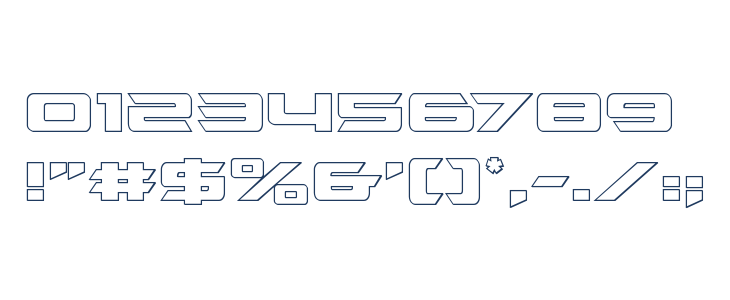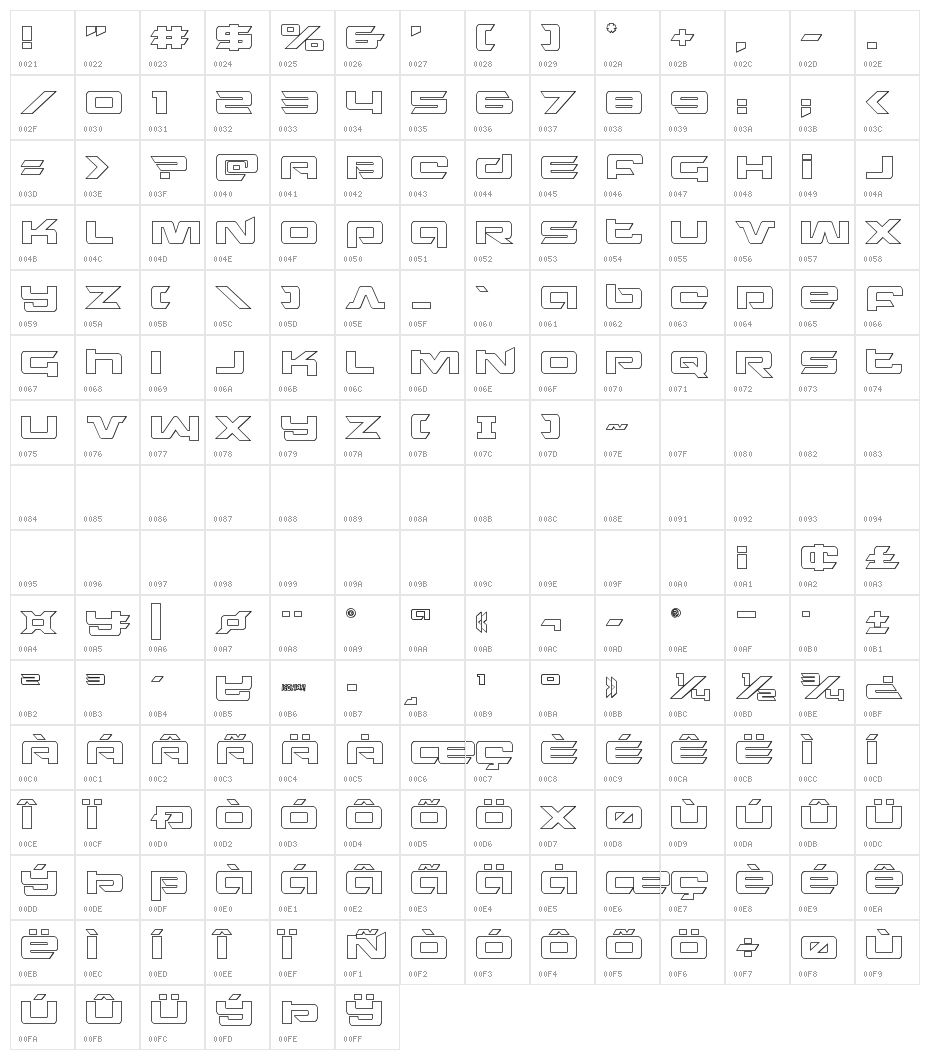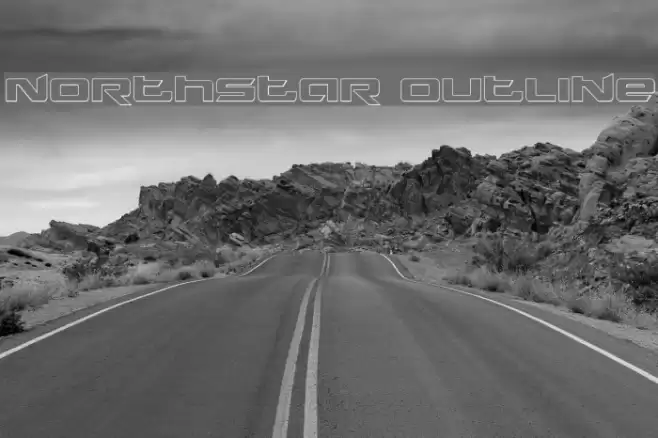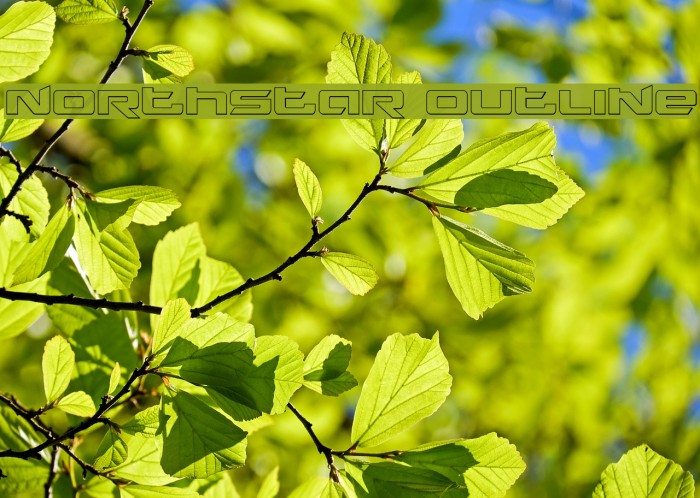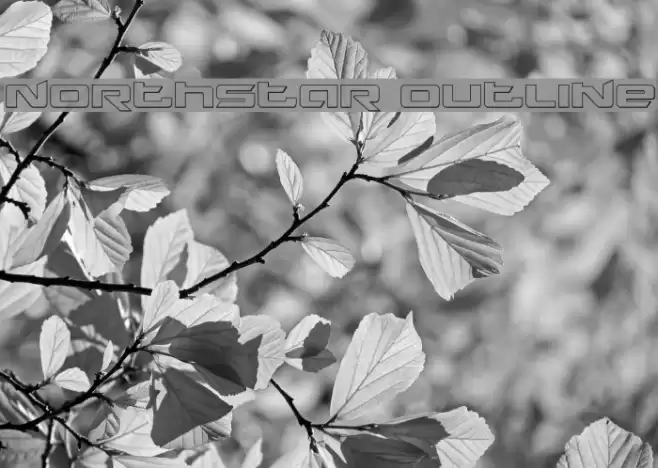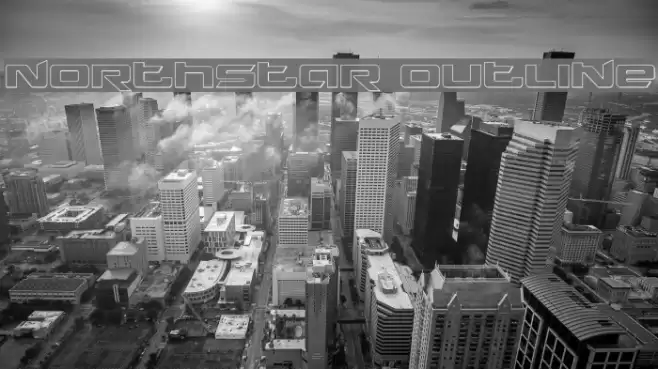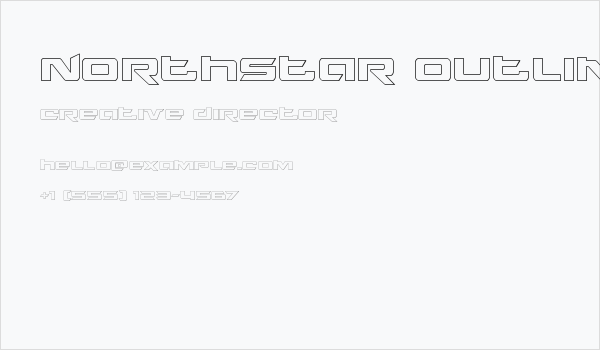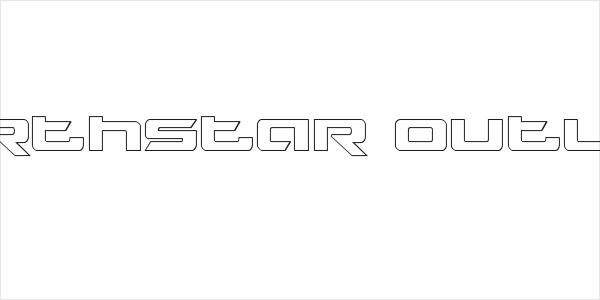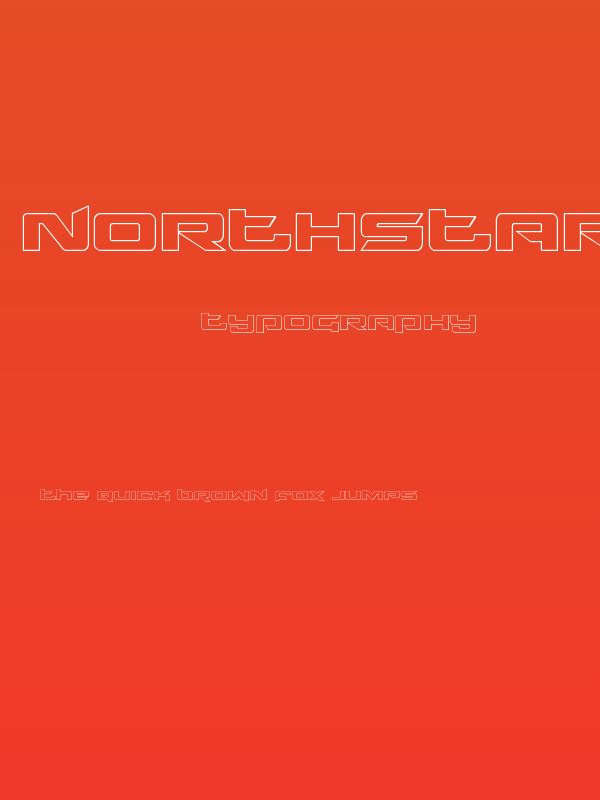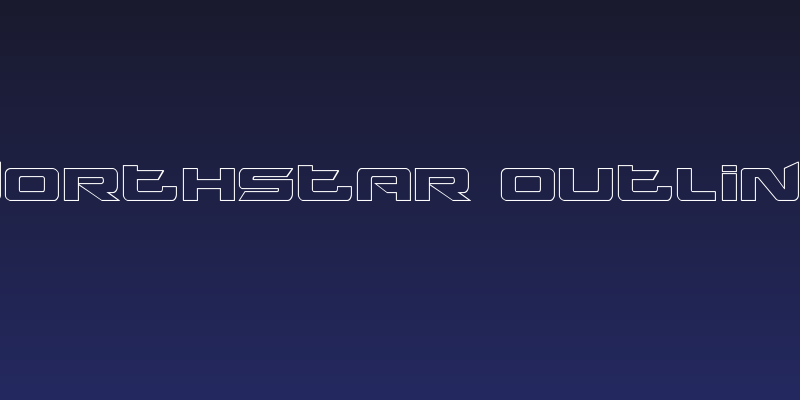
Northstar Outline Font
Northstar Outline Description
This font features a modern, futuristic outline style with geometric shapes and sharp angles. The uppercase and lowercase letters maintain a consistent height, creating a uniform appearance. The characters are outlined, giving them a hollow look that emphasizes their angular design. The numbers and special characters follow the same stylistic approach, ensuring cohesion across all elements. This font is ideal for projects that require a contemporary and edgy aesthetic, such as technology-related branding or sci-fi themed designs.
| Proposed Projects | Ideal for technology branding, sci-fi themes, posters, and digital media. |